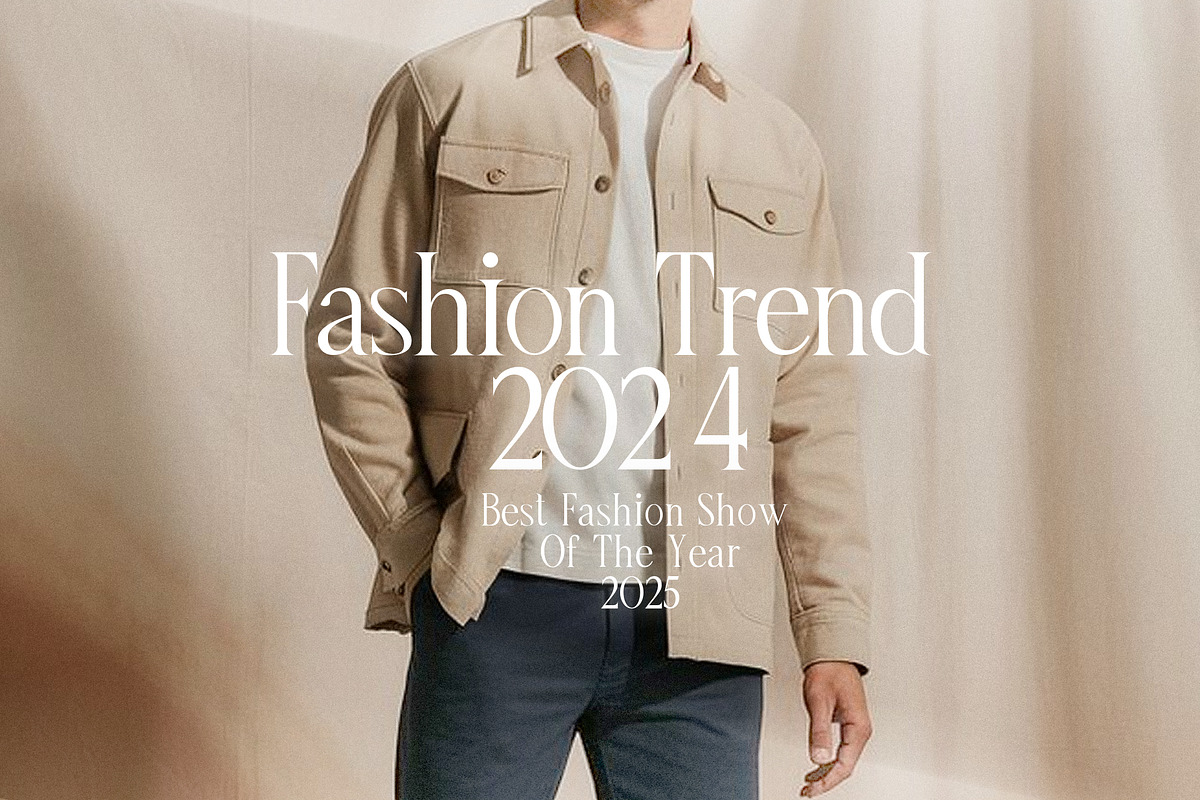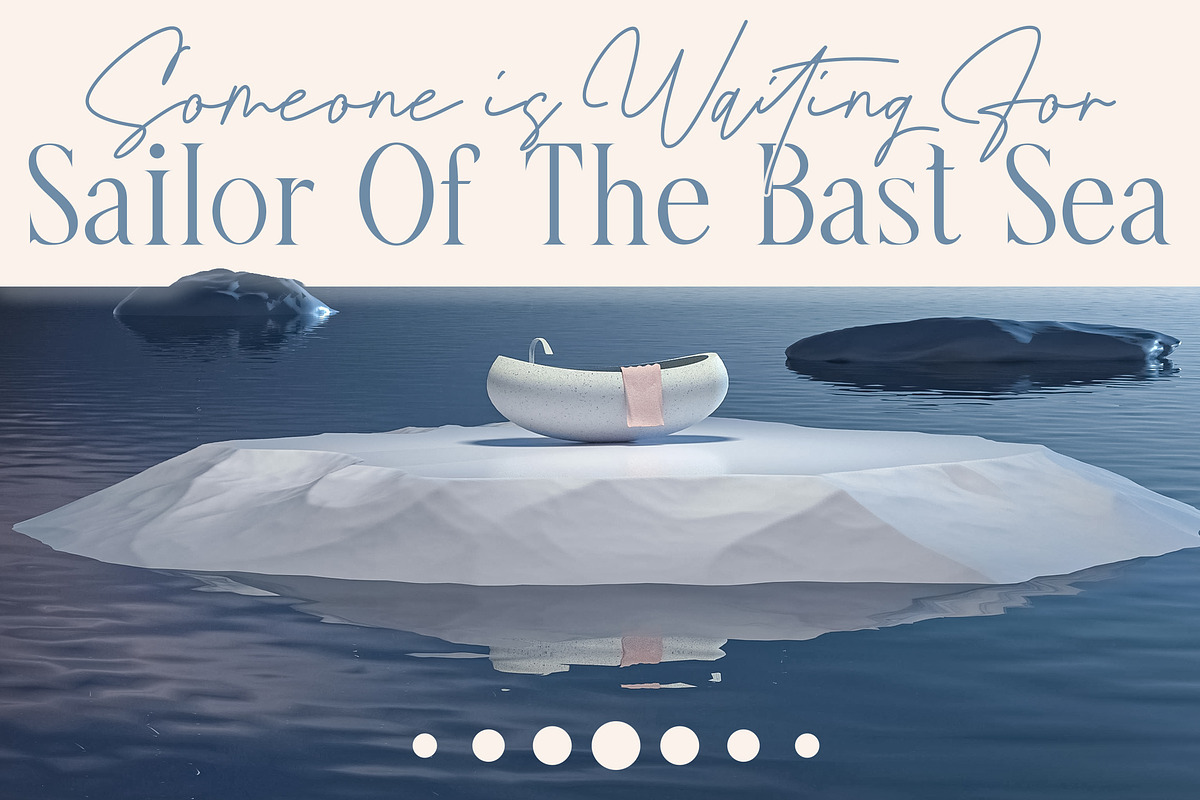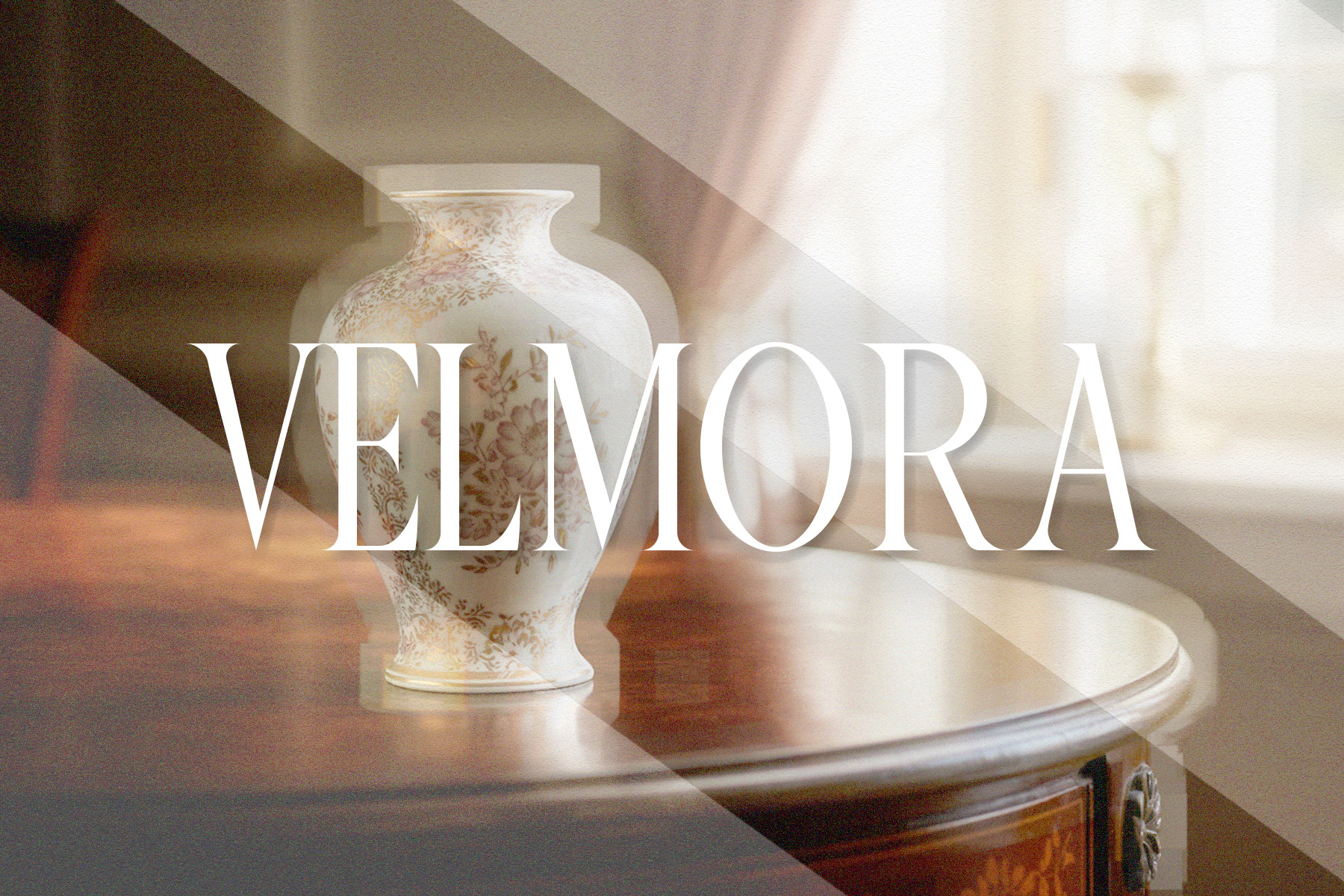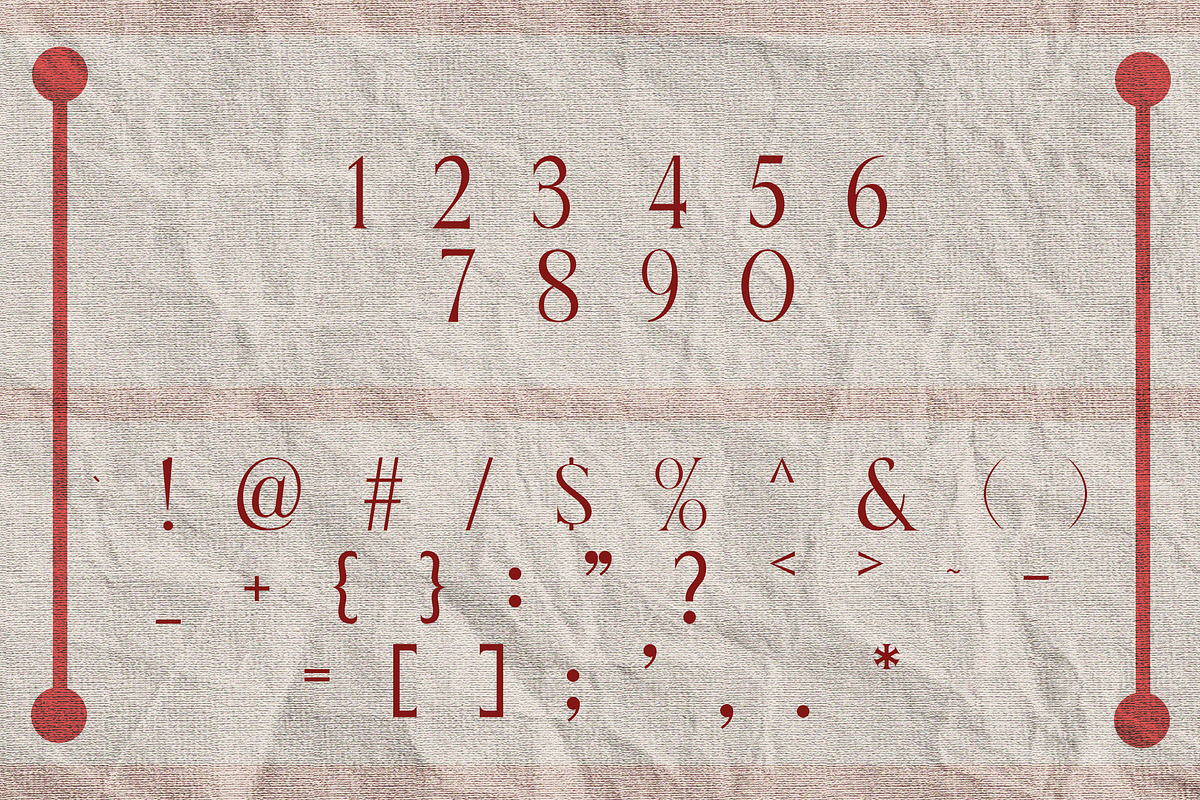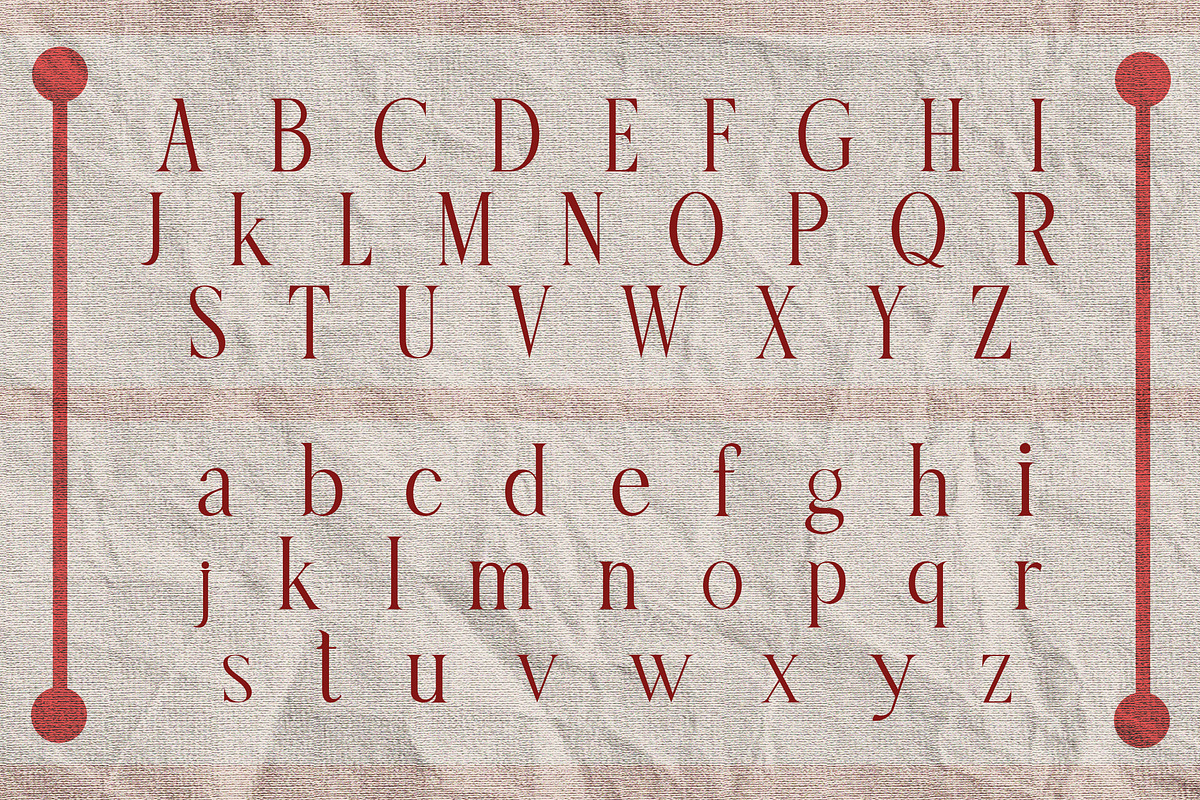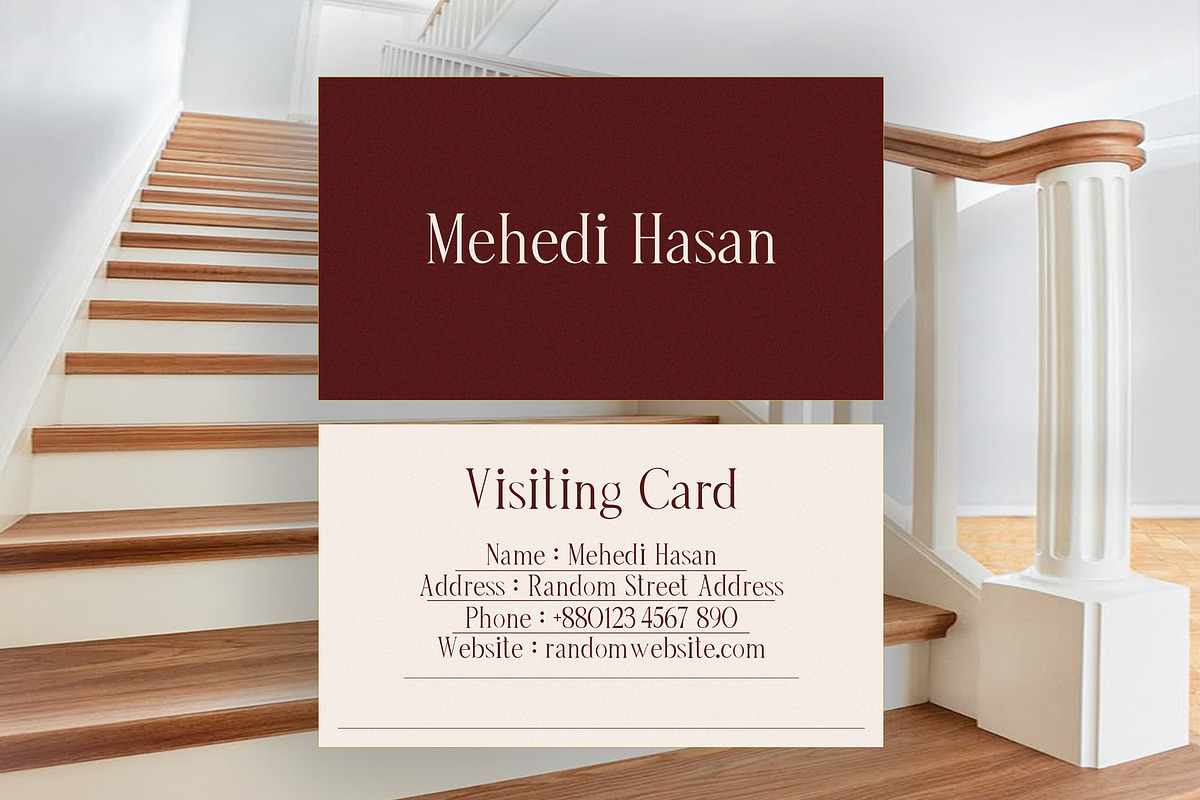
Velmora Serif Typeface
I'm happy to share Velmora, a serif typeface I created with a focus on elegance, clarity, and versatility. It was designed to bring a refined but approachable feel to a variety of creative projects—whether you're working on branding, editorial design, or something more personal like invitations or packaging. Velmora combines classic serif structure with subtle modern details, making it a great fit for designs that need to feel both timeless and fresh. It’s easy to work with and adapts well across print and digital formats.
Best used for: Brand identities and logos Editorial layouts and magazines Invitations and stationery Product packaging Social media graphics
I designed Velmora to be a reliable, go-to typeface—something you can come back to when you need a touch of sophistication without it feeling overdone. I hope it serves you well in your work.